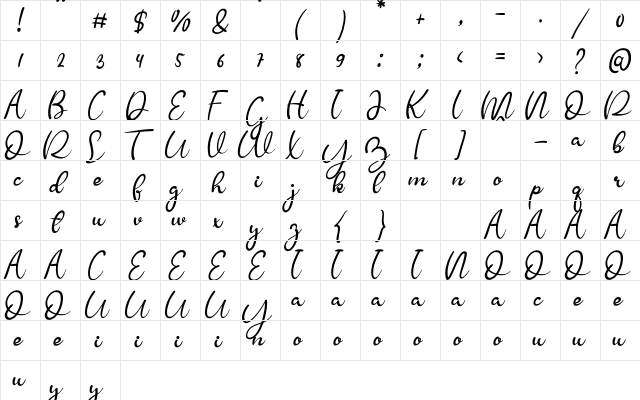
Rassika Love Regular
Design Context for Rassika Love Typeface
Rassika Love is a composed and adaptable typeface that performs quietly and consistently across a wide range of design contexts.
Pro Tip: Use Rassika Love in both headline and body roles to test its range before committing to a single application.